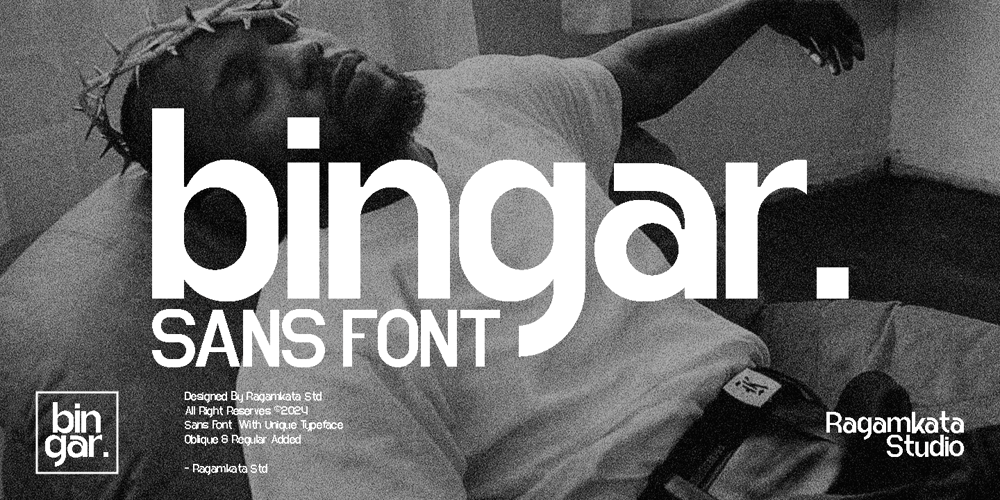
Bingar Font Family was designed by Yogiswhara Dio Prakoso Riadi and published by RagamKata. Bingar contains 2 styles and family package options. Bingar modern sans display font has smooth curves and a visual style a can embodies charm and elegance in every lettering, making your work look stunning and attractive. Font that works in both uppercase and lowercase sizes, suitable for a wide variety of projects such as a display font for headings, logo fonts, invitations, branding, book covers, magazine layouts, card, product packaging, product mockup, mugs, posters, labels, editorials, art deco, and any type of advertising purpose.What you get :- Regular and Oblique version- Instructions (Access special characters in all apps, even in Cricut Design)- Accessible in Adobe Illustrator, Adobe Photoshop, Microsoft Word even Canva!- PUA Encoded Characters. Fully accessible without additional design softwarePlease let me know if you need my questionsThank youRagamkata Studio